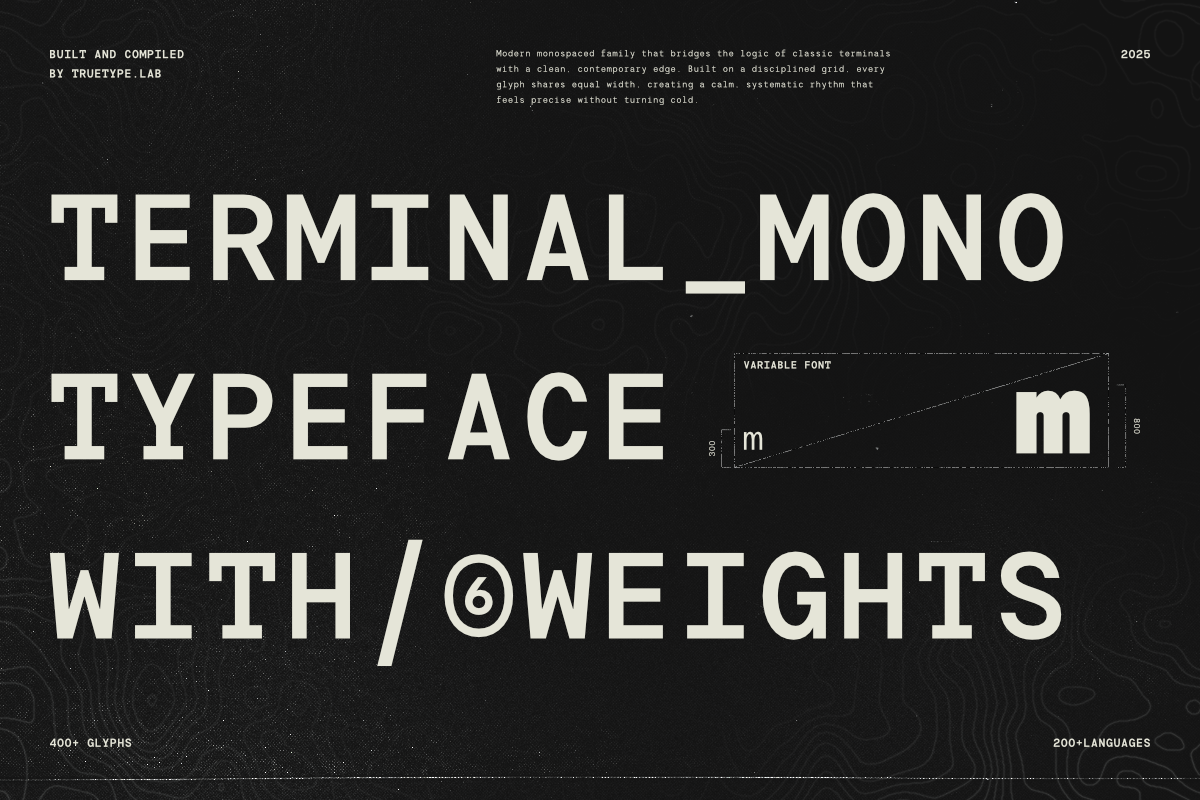
Terminal Monospace acts as a complete typographic system rather than a loose collection of shapes. I built every glyph on a strict, consistent grid so each character occupies equal horizontal space and contributes to a precise, measured rhythm. The design draws direct inspiration from classic terminal typography and data-driven environments, then updates those references with softer proportions and contemporary details to avoid cold, mechanical aesthetics. The result reads as intentional, reliable, and flexible across digital and print contexts.
Construction and Visual Character
Grid-based structure and optical calibration
Terminal Monospace enforces grid consistency: identical advance widths, balanced counters, and calibrated stroke endings. I calibrated optical proportions across all weights to preserve alignment, spacing, and visual logic. These refinements ensure the face performs predictably in tabular displays, code blocks, and dense editorial settings while maintaining legibility at small sizes.
Contemporary warmth within a technical frame
While the face preserves technical clarity, it introduces subtle humanizing shapes—slightly softened terminals, tuned apertures, and considered curve transitions. These details reduce harshness and increase readability, enabling the typeface to feel both authoritative and approachable.
Weights, Variable Axis, and Flexibility
Six balanced weights
The family includes six weights from Light through Extra Bold. I designed each weight on the same underlying structure so designers can build hierarchy and contrast without disrupting layout logic. The consistent metrics across weights make swapping weights seamless and predictable.
Variable font support
Terminal Monospace also ships as a variable font that exposes a continuous weight axis. Use the variable file to create smooth weight transitions, refine emphasis, and conserve file size for web delivery. The variable format maintains consistent spacing and proportions throughout the axis, so you can animate or interpolate weight without breaking grids or alignment.
Glyph Set, Language Support, and Numerals
Extensive glyph coverage
The family includes over 400 glyphs and supports more than 200 languages across extended Latin. I included multiple numeral styles—regular tabular figures, circled numerals, and filled figures—so you can choose the presentation that best matches data, UI, or editorial contexts. Designers will find punctuation, diacritics, and alternates that solve common multilingual and typographic needs.
Use Cases and Practical Applications
Where Terminal Monospace excels
Terminal Monospace excels wherever clarity, alignment, and control matter. Use it in code editors, terminal UIs, dashboards, and documentation to enforce vertical rhythm and readable columns. Deploy it in editorial systems and exhibition graphics to deliver a technical yet refined voice. Leverage its structured numerals in financial reports, data visualizations, and product specifications to preserve numeric alignment and legibility.
Design systems and brand identity
Teams can integrate Terminal Monospace into brand identity systems that require a dependable fixed-width voice. Its systematic nature scales across print and screen, allowing designers to maintain consistent typographic rules in design systems, component libraries, and marketing assets.
Key Features
At-a-glance
- Modern monospace system typeface built on a strict grid
- Six balanced weights: Light → Extra Bold
- Variable font with continuous weight axis
- 400+ glyphs and 200+ language support
- Multiple numeral styles: regular, circled, filled
- Optimized for UI, editorial, data visualization, and display use
- Designed to deliver clarity, rhythm, and hierarchy
Why Choose Terminal Monospace
Systematic, scalable, and practical
Choose Terminal Monospace when you need a monospace solution that actively supports system thinking and scales across products. It enforces alignment, maintains optical consistency across weights, and adapts to variable workflows. Whether you design interfaces, publish technical documentation, or build visual identities, Terminal Monospace gives you a reliable, modern, and readable typographic foundation.